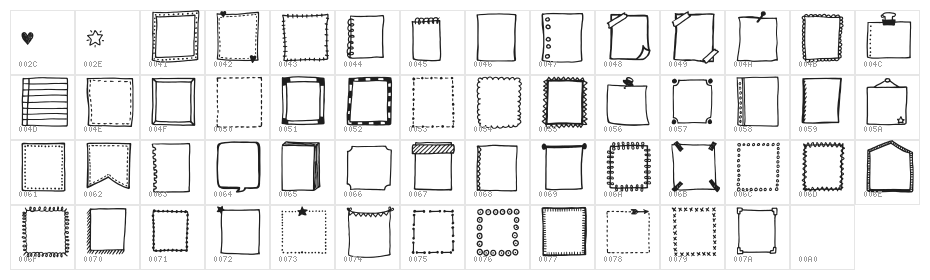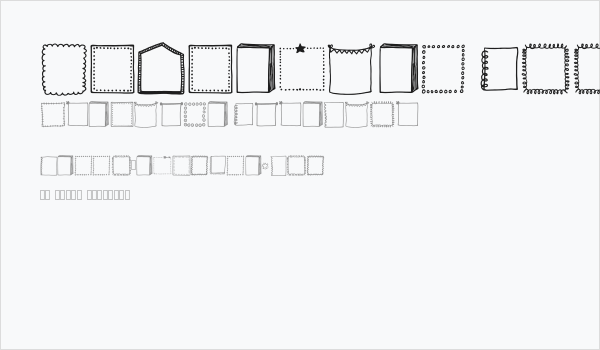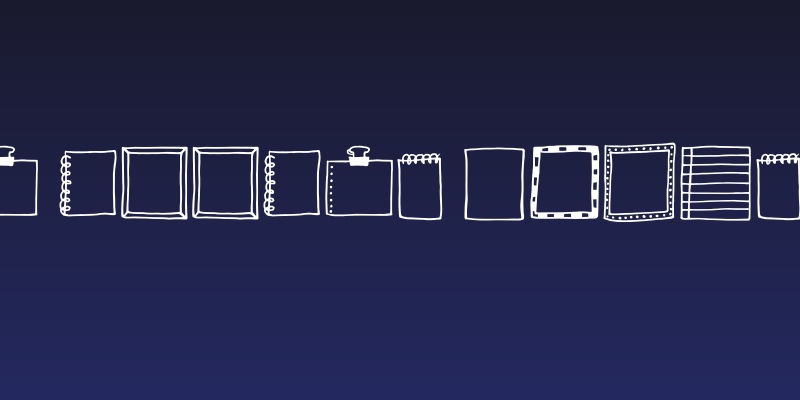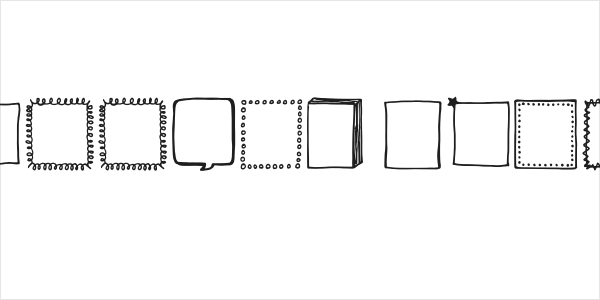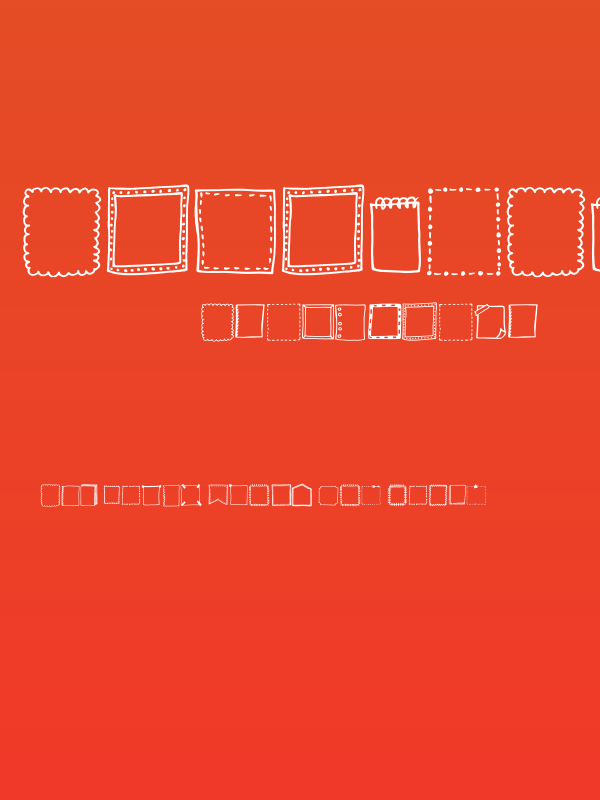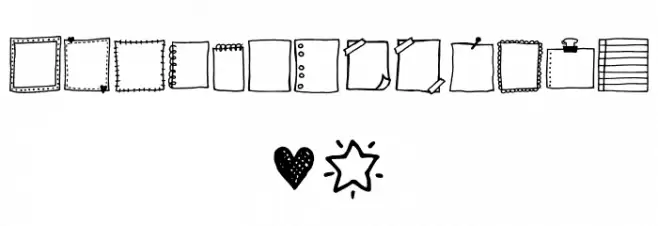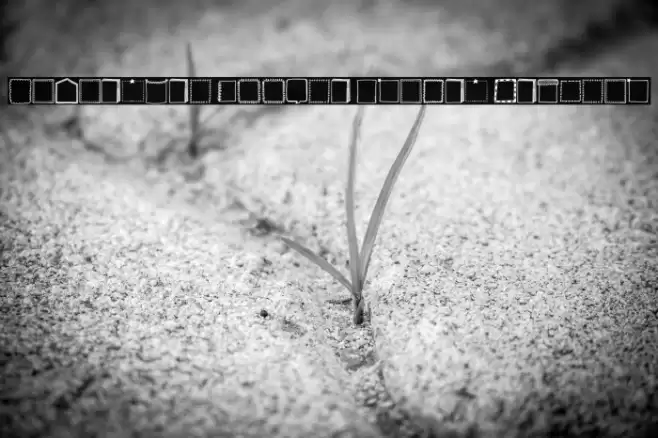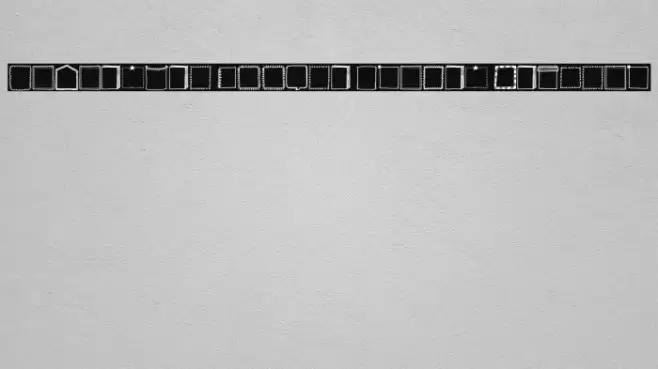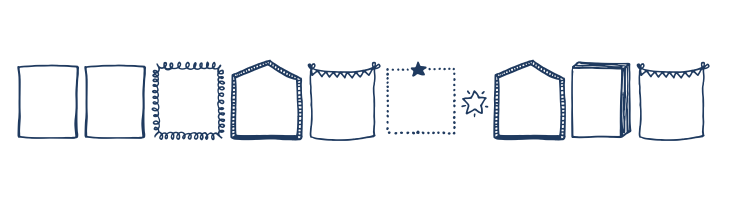
Tanaestel Doodle Frames Regular Font
Tanaestel Doodle Frames Regular Description
This is a decorative collection of doodle-style frames, each with unique hand-drawn characteristics. The frames vary in design, featuring elements like stitching, tape, pins, and patterns that give them a playful and whimsical appearance. These frames are ideal for adding a personal touch to creative projects, offering a casual and artistic vibe. The variety in design allows for versatile use, making them suitable for scrapbooking, digital art, and other creative endeavors.
| Use Case | Logos, Decorative elements |
| Proposed Projects | Ideal for scrapbooking, digital art, greeting cards, and creative projects requiring a personal touch. |